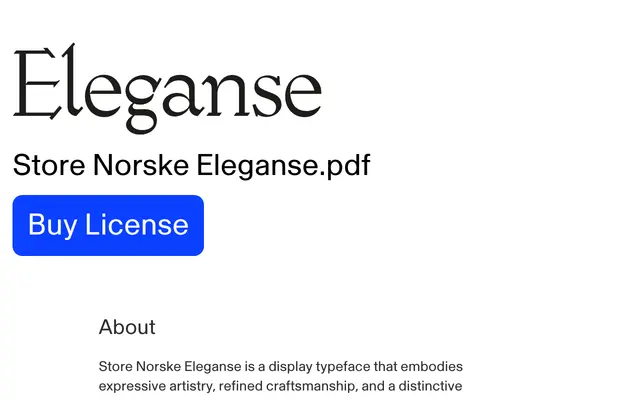
Store Norske Eleganse
A display typeface by Arve Båtevik that revives Ehmcke's 1927 Elzevir, balancing ornamental calligraphic letterforms with a rational, contemporary structure.
Drawing on the legacy of Ehmcke's Elzevir, first published by Ludwig Wagner in 1927, this face reinterprets early 20th-century calligraphic tradition through measured, modern construction. The design pairs monumental, decorative capitals with fluid lowercase letterforms, and ten stylistic sets allow designers to moderate or amplify its eccentricity. Broad Latin coverage spans Western and Central European scripts through to Nordic and Sami languages.
Rooted in Ehmcke's Elzevir (1927), Eleganse blends ornamental calligraphic tradition with geometric structure, placing it firmly in the display category with a calligraphic subcategory.